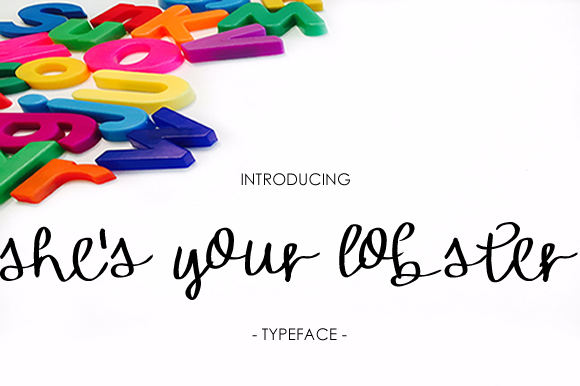
Introduction to She’s Your Lobster Font
She’s Your Lobster is a fun handwritten script with a relaxed baseline, useful for use in super casual projects.
This display font works well in a wide range of designs .
Key Features of She’s Your Lobster Font